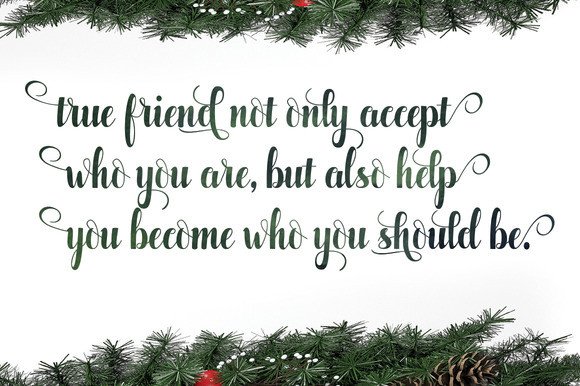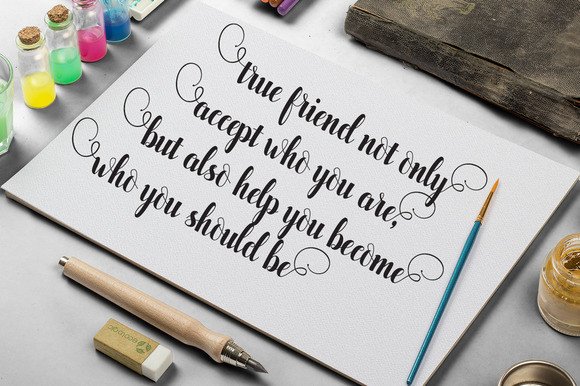
Pugsley Font
db-ku.com - Script & Handwritten -- Pugsley is a beautiful handwritten font. Pugsley was crafted manually. Every letter has been painted on paper, scanned, digitized, and later on optimized.